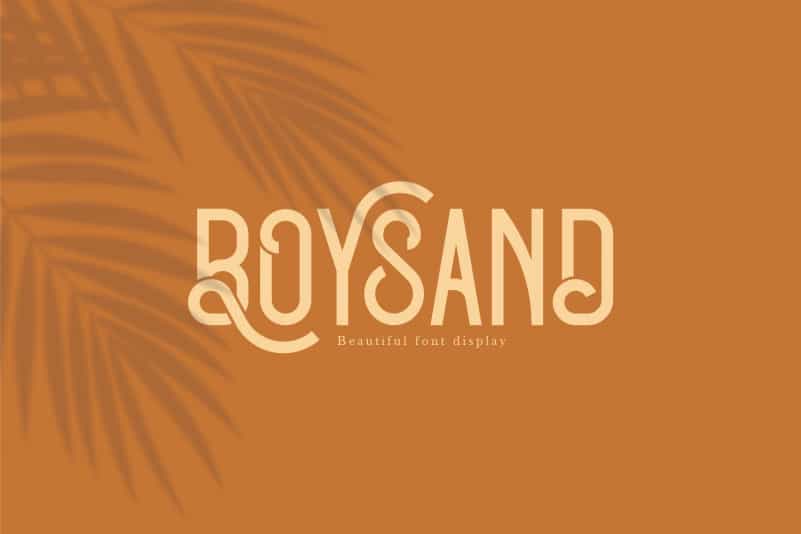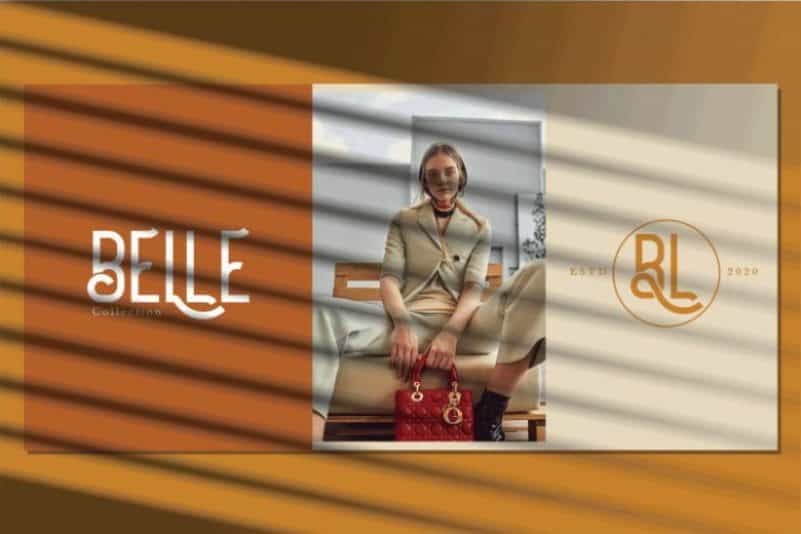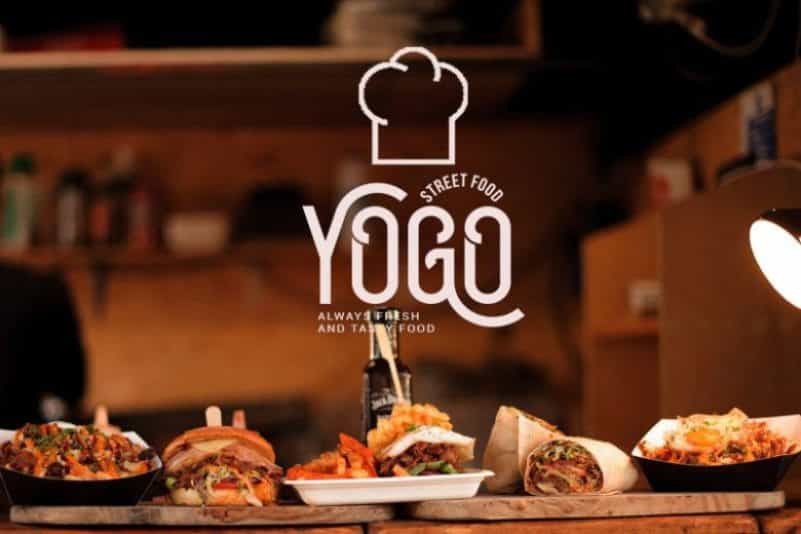
Boysand is a sans serif font that has a modern retro style, Boysand comes with uppercase, lowercase and ligatures so it gives you the freedom of design. Our system also combines for your work such as posters, logos magazines, covers, banners, t-shirts headers or even large scale artwork.